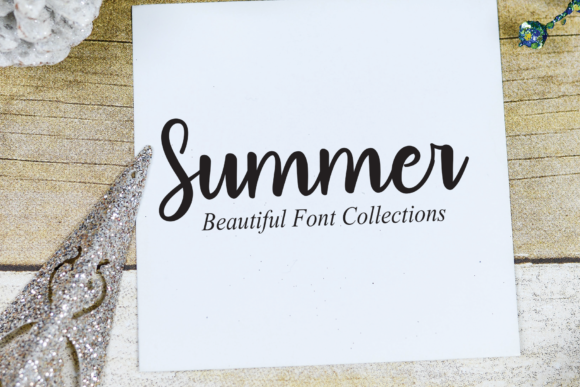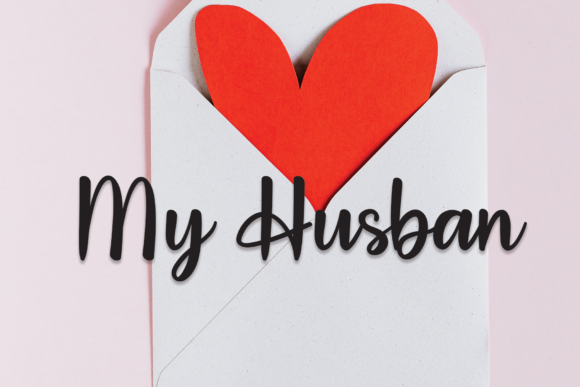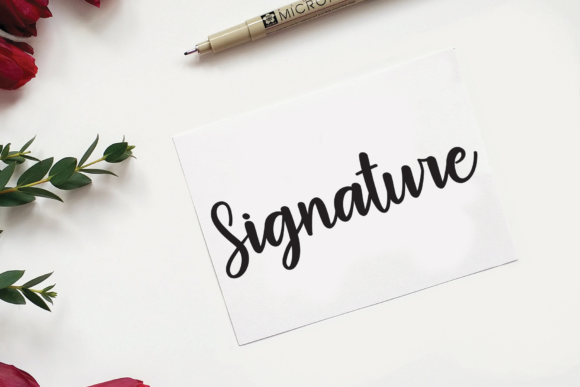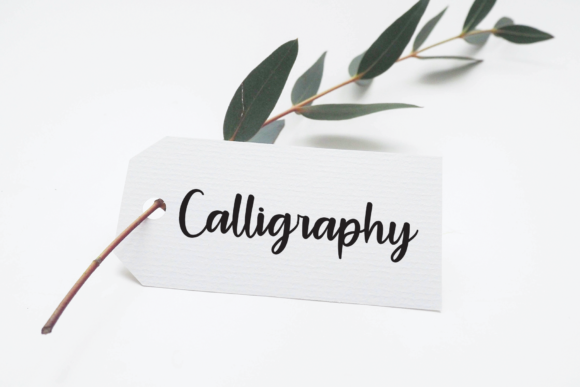
Bubble Font: The Sweet and Bold Handwritten Font for Designers and Crafters
Are you a designer or crafter looking for a unique and eye-catching font to add a personal touch to your projects? Look no further than the Bubble Font, a sweet and bold handwritten font that is sure to make your designs stand out. With its beautiful curves and PUA coding, this font is a must-have for anyone looking to add a touch of whimsy and personality to their work.
What is Bubble Font?
Bubble Font is a type of handwritten font that features beautiful, flowing curves in each letter. The font is designed to have a playful and bubbly feel, making it perfect for projects that require a touch of whimsy and fun. Whether you’re working on a DIY craft project, a graphic design project, or a digital art piece, Bubble Font is sure to add a personal touch that sets your work apart.
Key Features of Bubble Font
So what makes Bubble Font so special? Here are just a few of its key features:
• Sweet and bold design: Bubble Font features a sweet and bold design that is sure to grab attention. The font’s curves and lines are carefully crafted to create a playful and eye-catching effect.
• Beautiful curves: Each letter in Bubble Font features beautiful, flowing curves that add a touch of elegance and sophistication to your designs.
Benefits of Using Bubble Font
So why should you choose Bubble Font for your design projects? Here are just a few benefits of using this amazing font:
• Adds a personal touch: Bubble Font is a unique and eye-catching font that adds a personal touch to your designs. Whether you’re working on a DIY craft project or a professional design project, this font is sure to make your work stand out.
• Perfect for a variety of projects: Bubble Font is versatile and can be used for a wide range of projects, including DIY crafts, graphic design, digital art, and more.